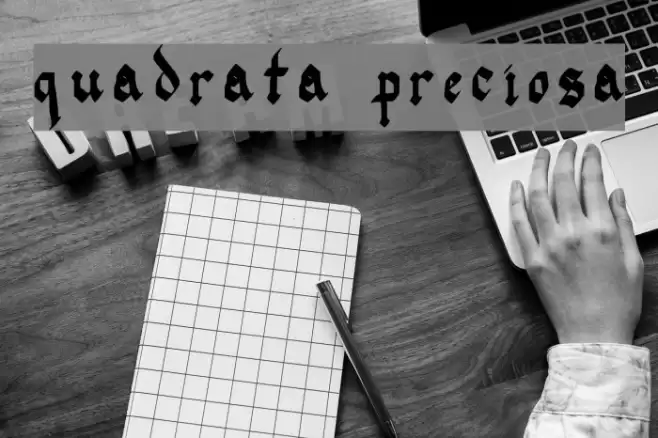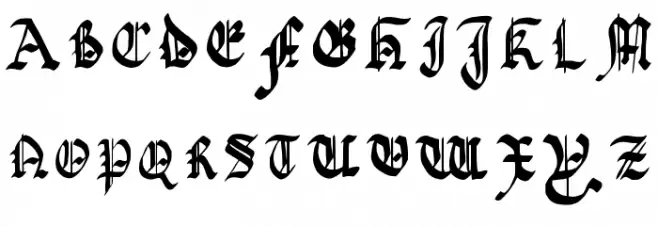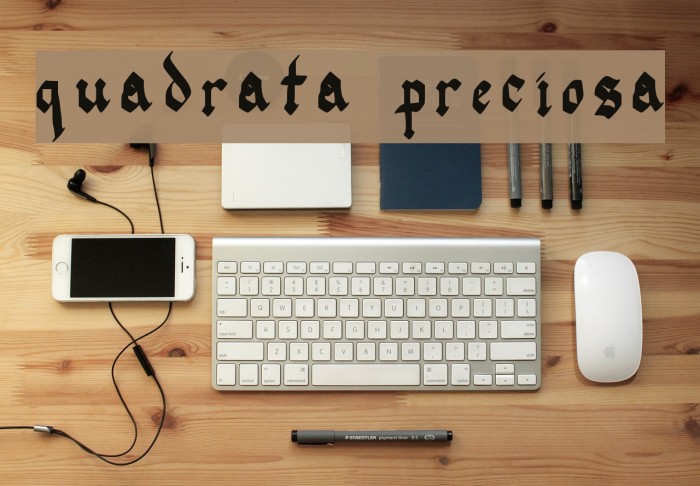
quadrata preciosa Font
quadrata preciosa Description
This font exudes a classic and historical aura, reminiscent of medieval manuscripts and traditional calligraphy. The characters are intricately designed with sharp, angular strokes and elaborate serifs, giving it a distinctly Gothic appearance. The uppercase letters are bold and commanding, while the lowercase letters maintain a consistent style with slightly more delicate features. The overall design is ornate and decorative, with a high level of detail that captures the essence of old-world craftsmanship. This font is perfect for projects that aim to evoke a sense of history, tradition, or elegance.
A Gothic-style font with intricate, angular strokes and elaborate serifs from Uncategorized fonts.
- Proposed Projects: Ideal for historical documents, wedding invitations, book covers, or any project requiring a touch of elegance and tradition.
- Overall Style: Vintage
- Use Case: Logos, Headlines, Decorative text